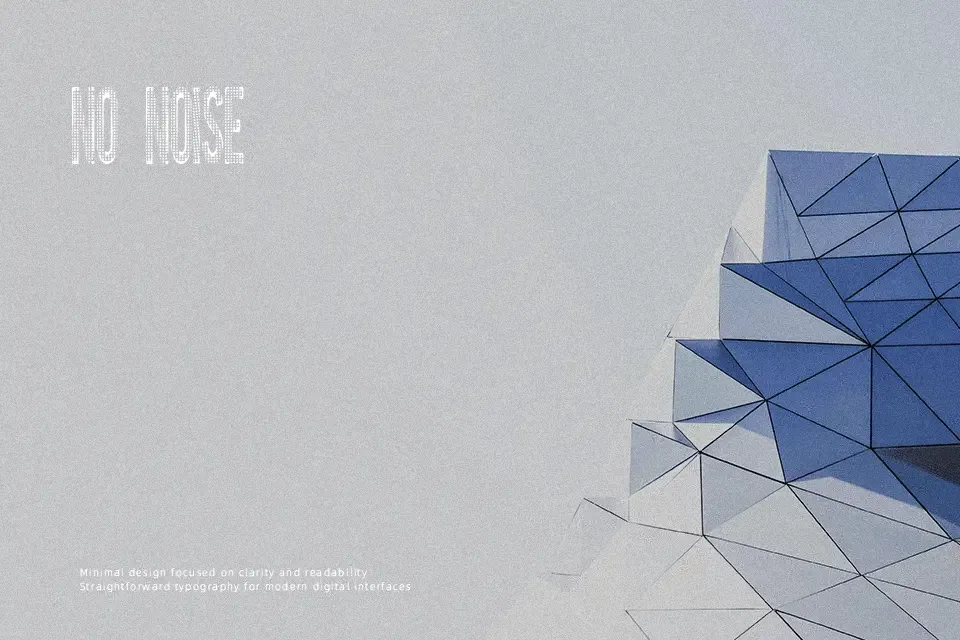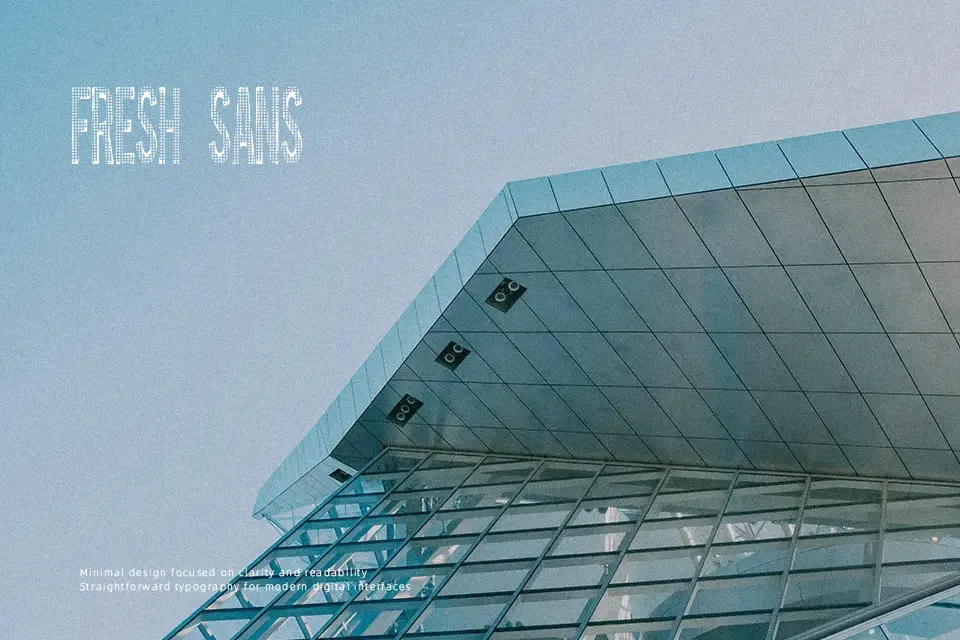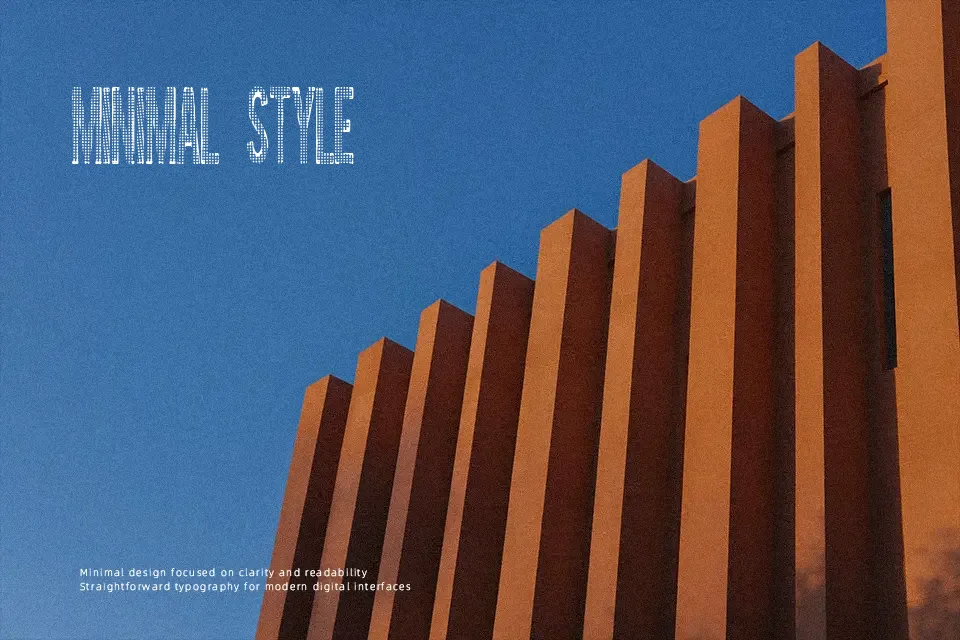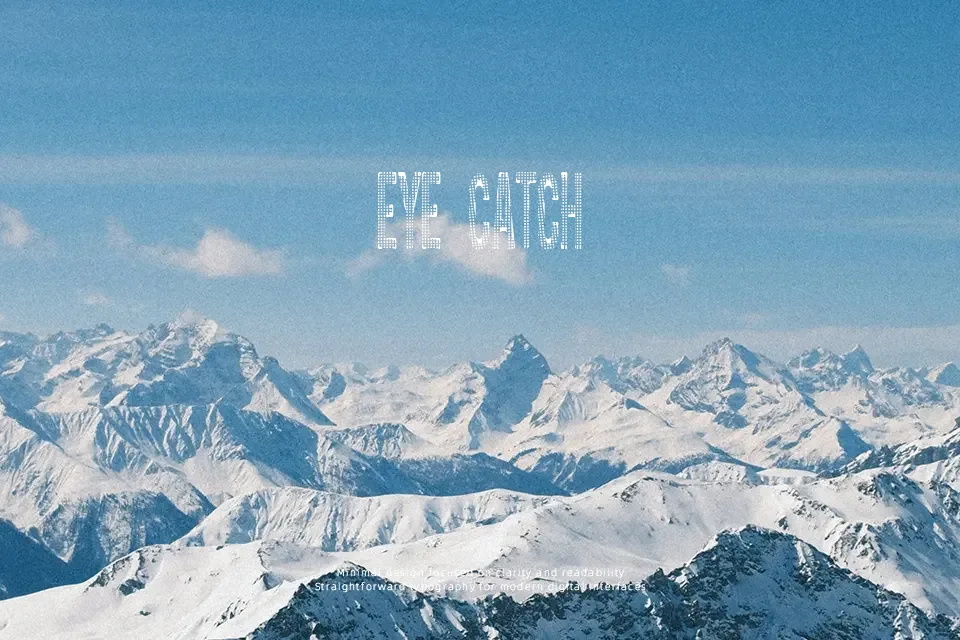
Pussy Electronics Font
The Pussy Electronics Font is a display typeface that utilizes a highly structured, mechanical approach to its letterforms. Characterized by condensed proportions and geometric strokes, the design creates a rigid, technological visual rhythm across large formats. The tight spacing helps maintain clarity in larger headlines, ensuring maximum impact for gaming interfaces, futuristic posters, and modern branding projects. While the meticulously aligned terminals and uniform stroke weight provide strong architectural stability, these decorative details become less effective at smaller sizes. Consequently, the typeface loses continuous reading comfort when applied to dense paragraphs or small interface labels, making it strictly suited for prominent display applications.
Best For: futuristic gaming logos, technical poster headlines, music event branding
Not Ideal For: long paragraph text, small interface labels, dense editorial layouts
Perfect for gaming, headline, and logo, with a bold and condensed style.